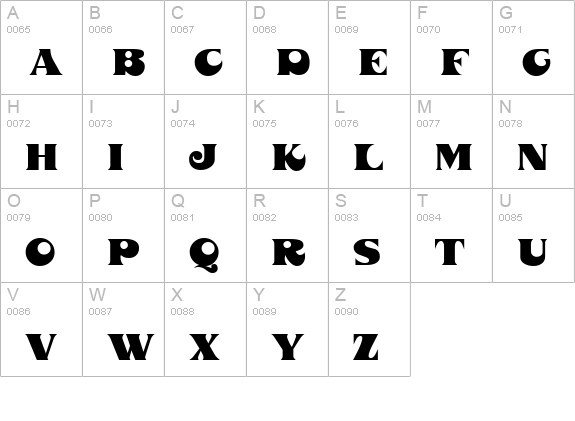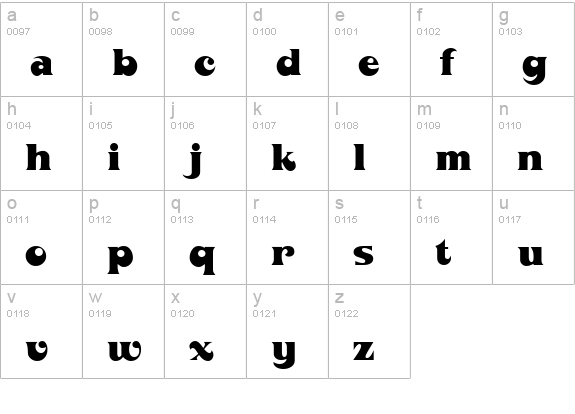
Mahoney Regular Font Details
Mahoney Regular is the standard, neutral variant in the Mahoney typeface family \xE2\x80\x94 well suited to general body text, paragraphs, and standard typographic work.
Mahoney Regular is a versatile and elegant font that exudes a timeless charm. It combines classic letterforms with a modern twist, making it suitable for a wide range of design projects. Whether you are creating a logo, a website, a poster, or any other creative endeavor, Mahoney Regular will add a touch of sophistication and professionalism. This font features clean lines, balanced proportions, and a legible structure, making it easy to read in both small and large sizes. Its well-defined characters have just the right amount of curves and angles, resulting in a harmonious and pleasing aesthetic. Mahoney Regular strikes the perfect balance between simplicity and intricacy, making it a go-to choice for designers seeking a versatile and reliable typeface. One of the most appealing aspects of Mahoney Regular is that it is free to download. FontsMarket.com, a trusted source for high-quality fonts, offers Mahoney Regular as a freely available download. This means that you can add this beautiful font to your collection without any cost, allowing you to create stunning designs without breaking the bank. Whether you are a professional designer or an amateur enthusiast, Mahoney Regular is a font that will elevate your work to new heights. Its timeless elegance and versatility make it a valuable asset in any design project. Download Mahoney Regular from FontsMarket.com today and unlock the creative potential of this stunning typeface.